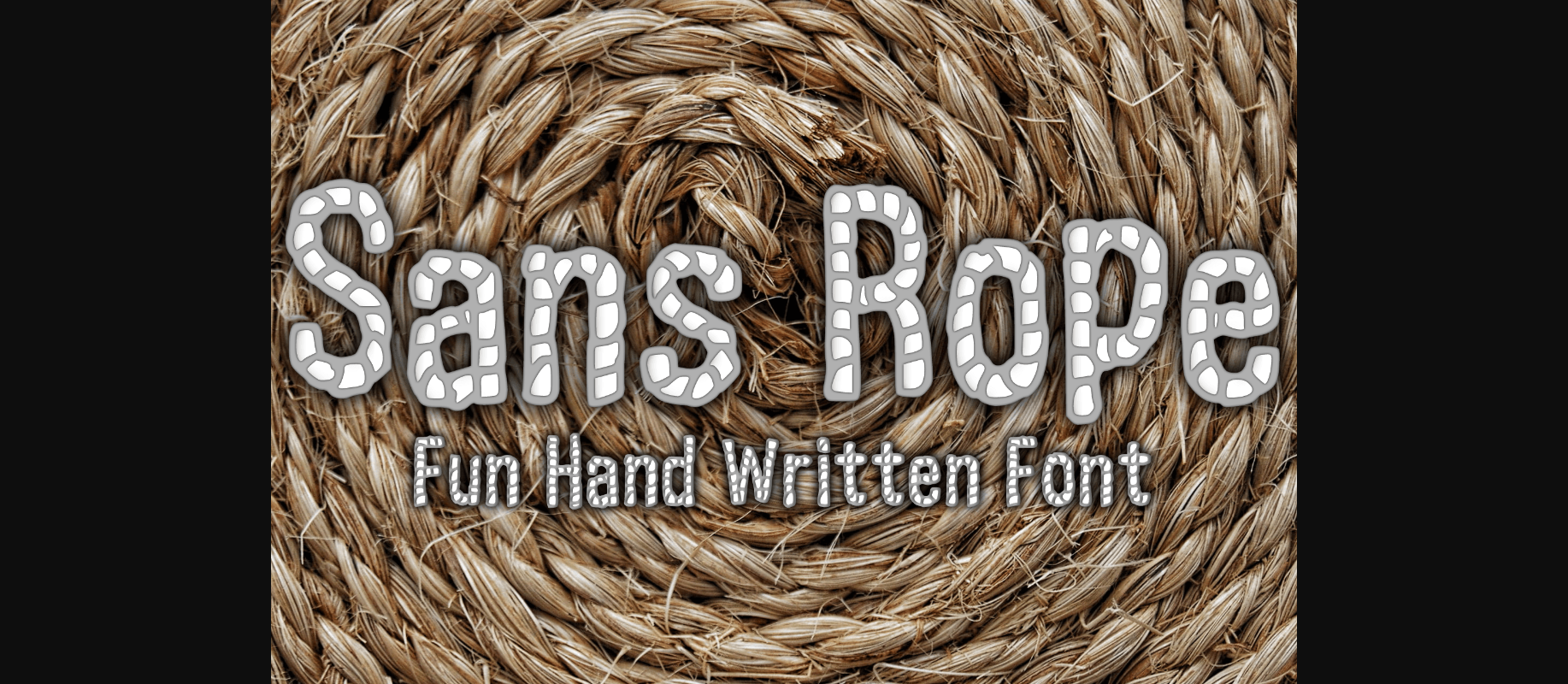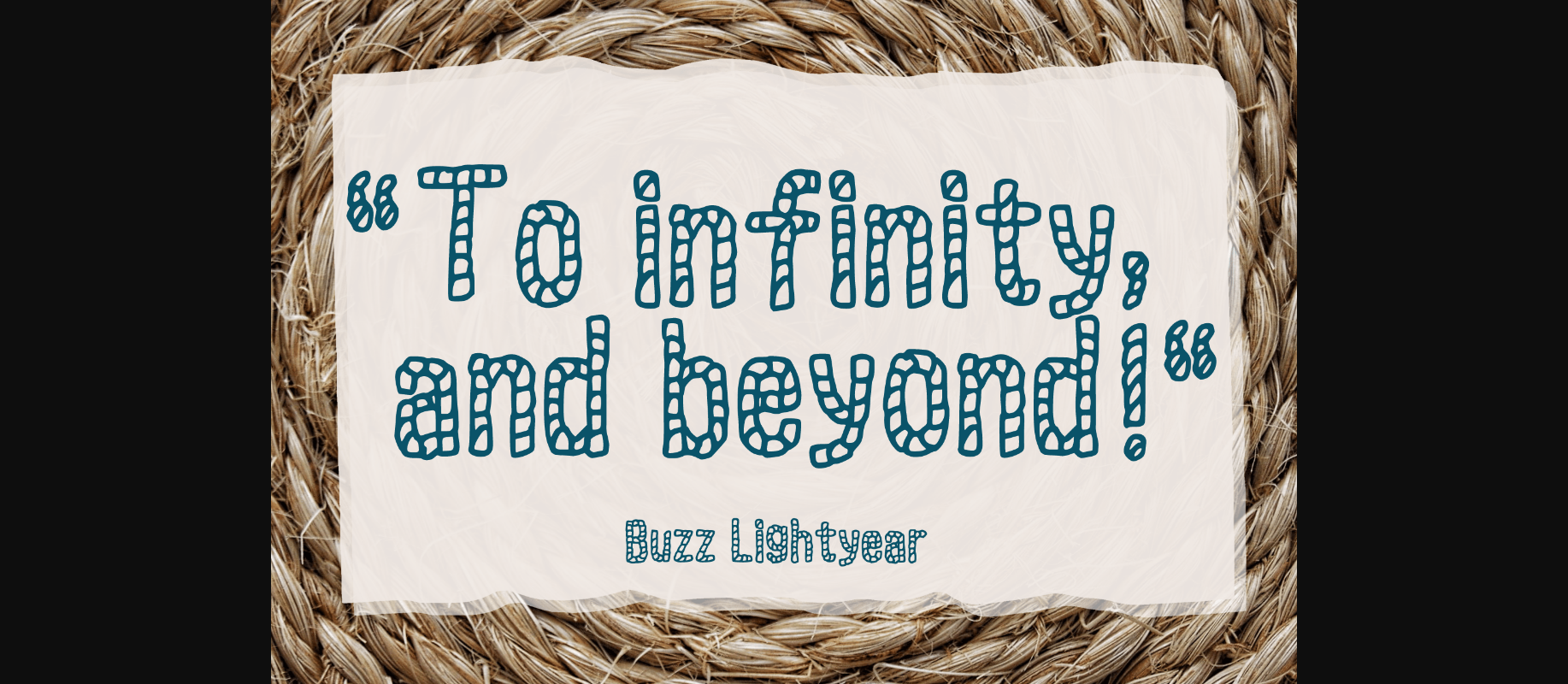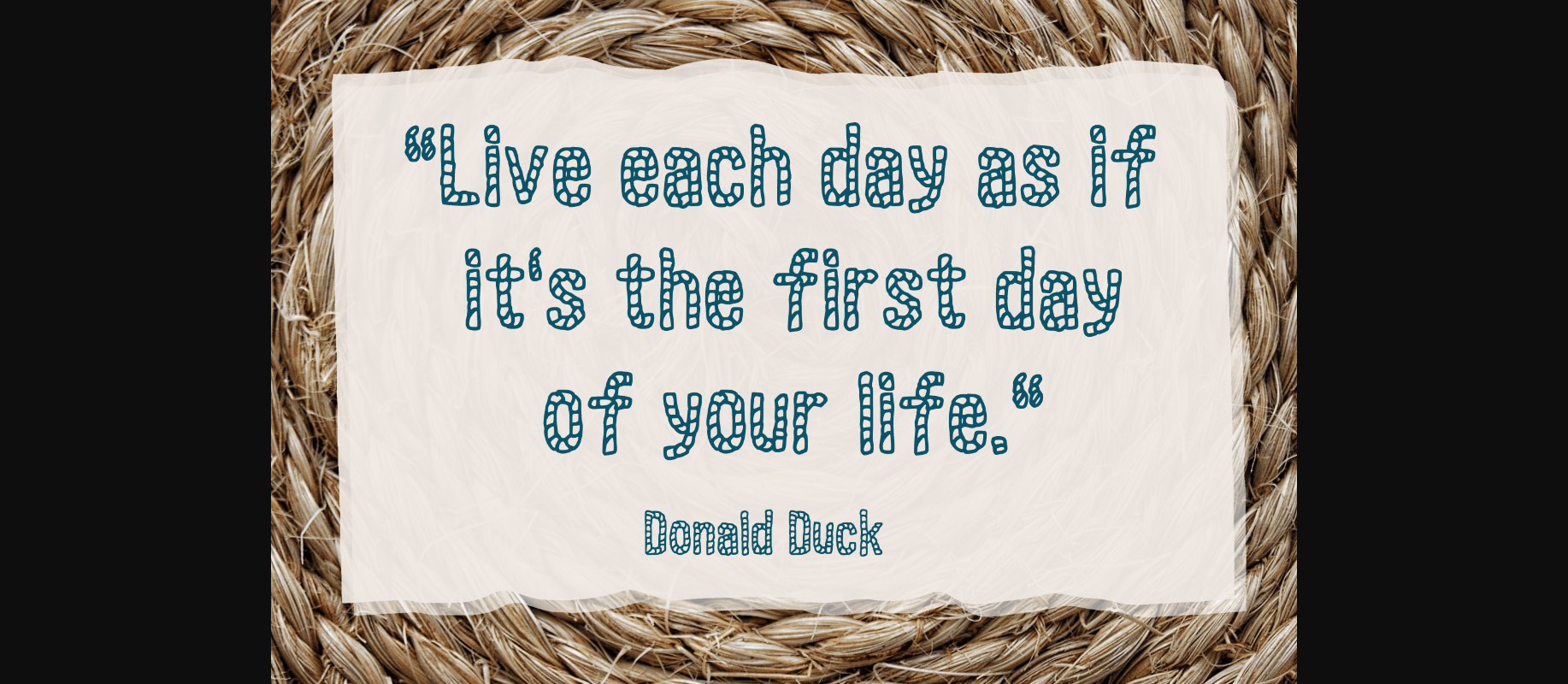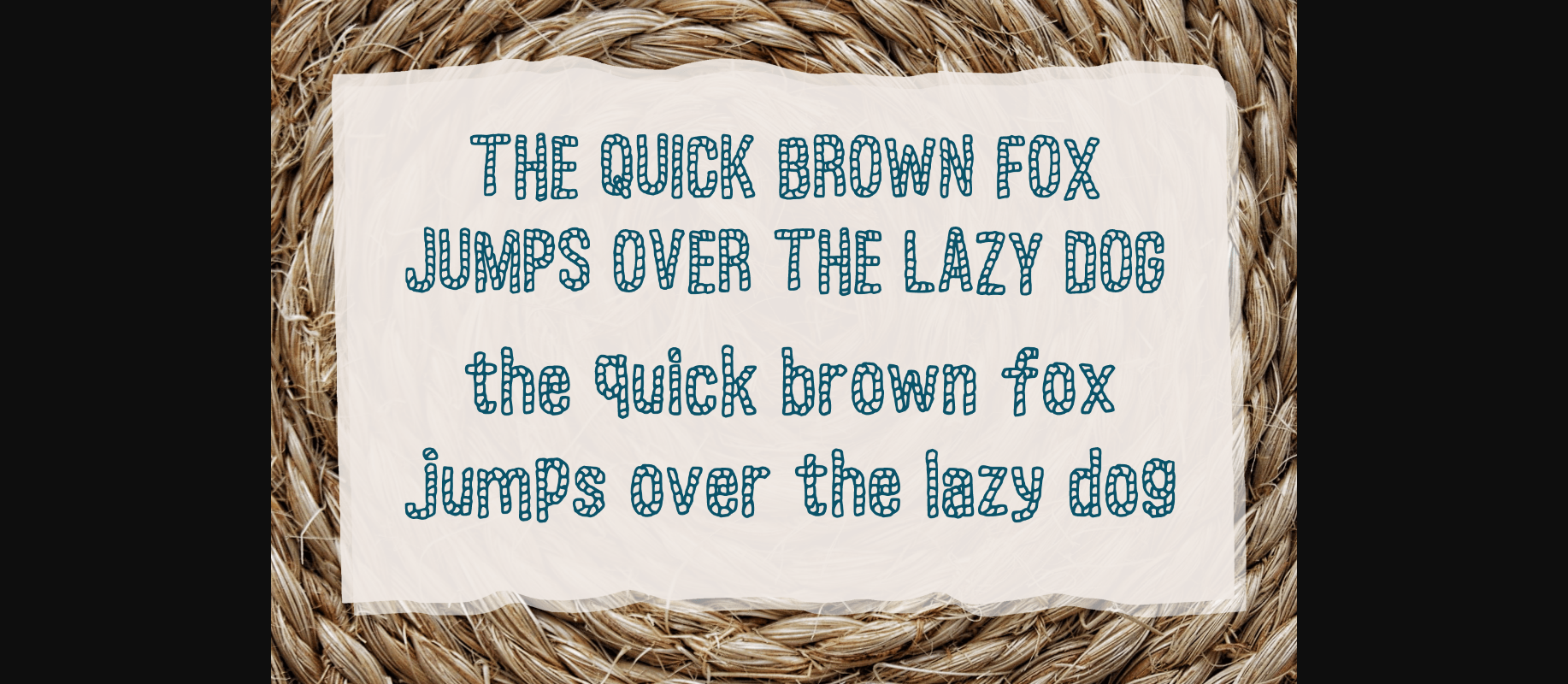
Sans Rope Font
About Sans Rope Font
Sans Rope is a unique handwritten decorative rope font. You can use it for anything ranging from greeting cards to stickers and posters, or anything that needs a casual touch. Fall in love with its incredibly versatile style and use it to create lovely designs!